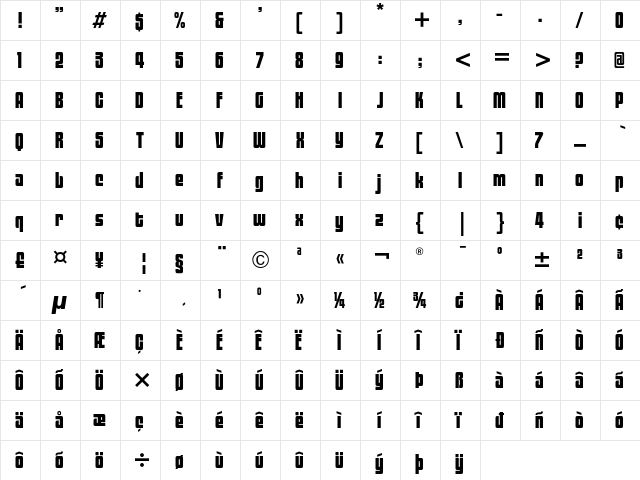
Black Tulip ITC Regular
Design Context for Black Tulip ITC Typeface
Black Tulip ITC takes a measured approach to typography — its balanced proportions and neutral character make it a reliable workhorse for both digital and print work.